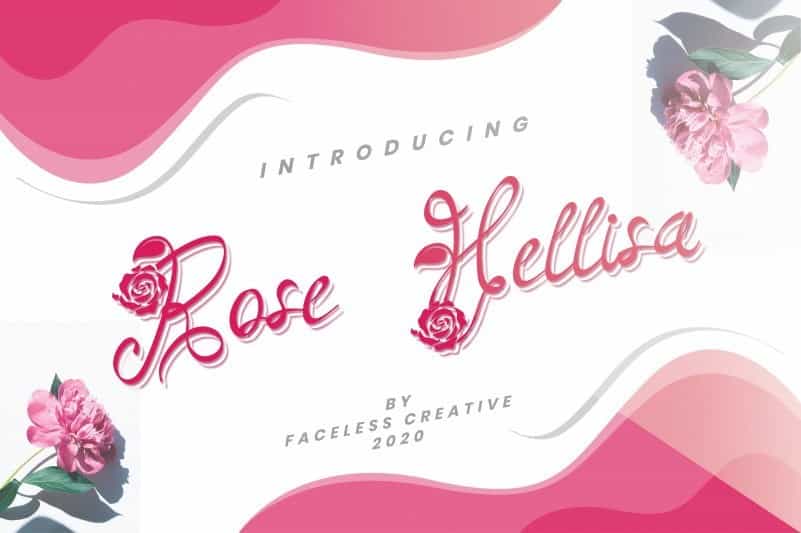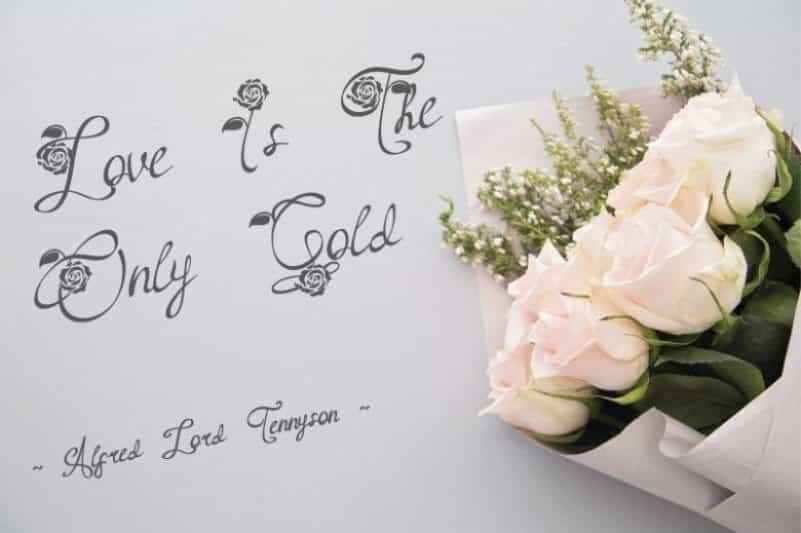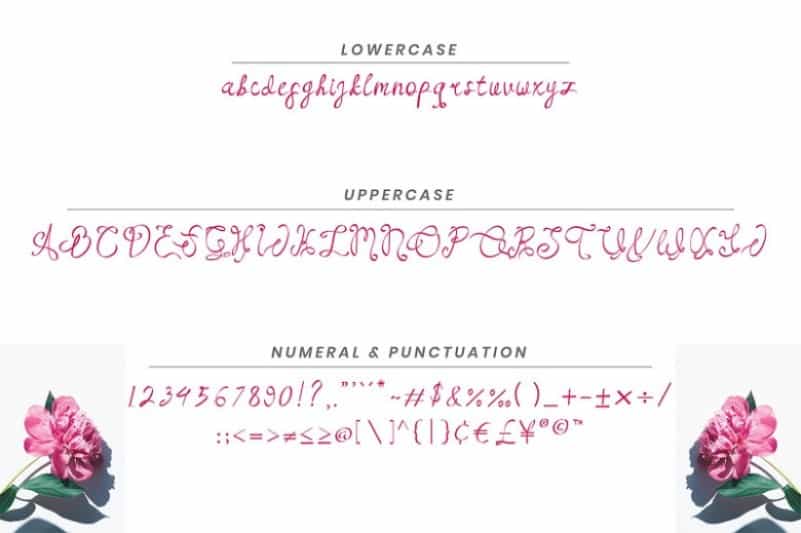
Discover Rose Hellisa Calligraphy Font, part of the Calligraphy collection—a versatile and unique font perfect for adding a personal touch to your projects. Download it for free and enjoy crafting designs with style, from invitations to social media posts. This font is available exclusively for personal use, giving you the freedom to create without limits. Unlock your creativity with Rose Hellisa Calligraphy Font today!
Rose Hellisa is a font that matches very well with roses. This font is versatile. It can be used for projects like signatures, invitations, stationery, logos, typography quotes, magazine or book covers website headers, clothing designs and branding and many more.